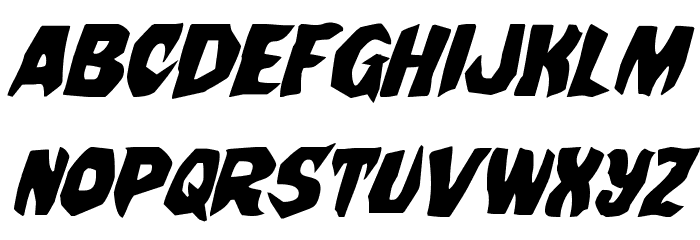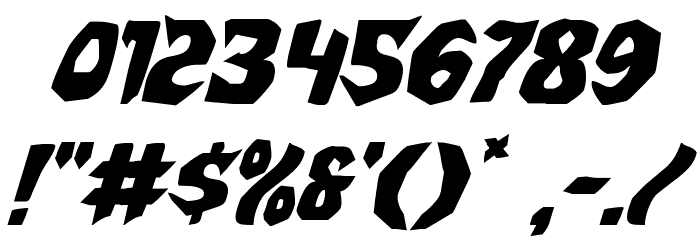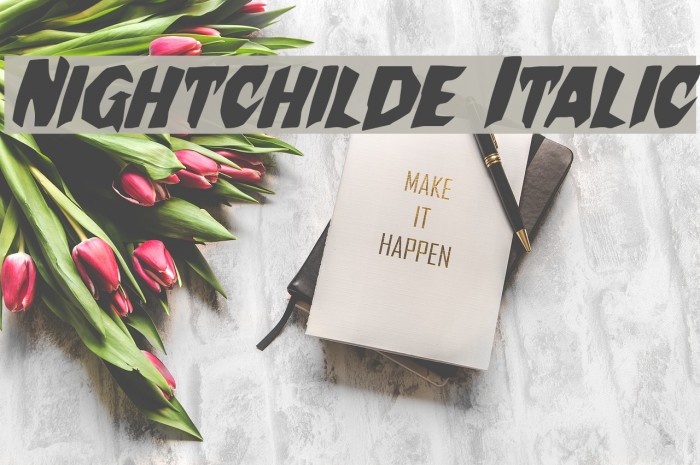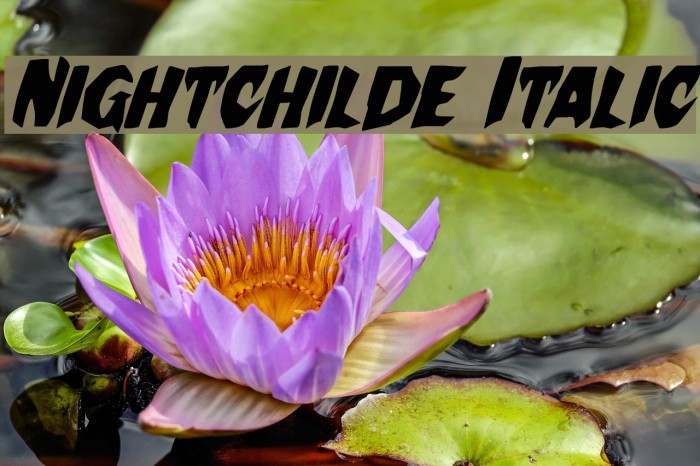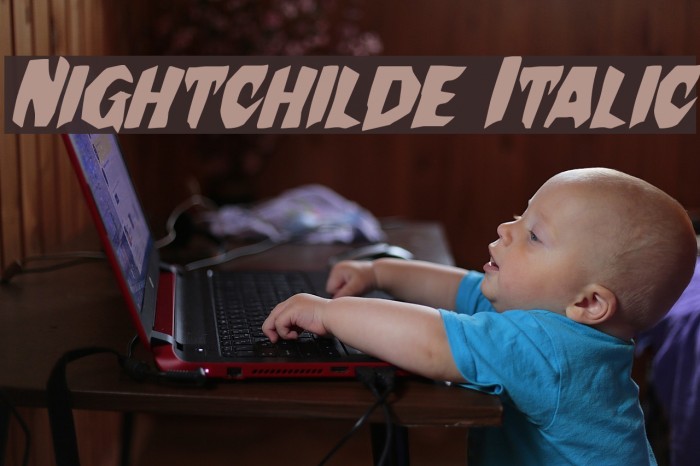
Nightchilde Italic Font
This font features a bold and dynamic style with sharp, angular edges and a slightly slanted orientation, giving it an italicized appearance. The characters are heavily stylized, with a strong presence and a sense of movement, making it ideal for attention-grabbing designs. The uppercase and lowercase letters maintain a consistent design language, with exaggerated strokes and a unique flair. The numbers and special characters follow the same bold and edgy aesthetic, ensuring a cohesive look across all text elements.
A bold, italicized font with sharp, angular edges and dynamic styling.
- Font: Nightchilde Italic
- Proposed Projects: Ideal for posters, album covers, video game titles, and any project requiring a bold, edgy look.